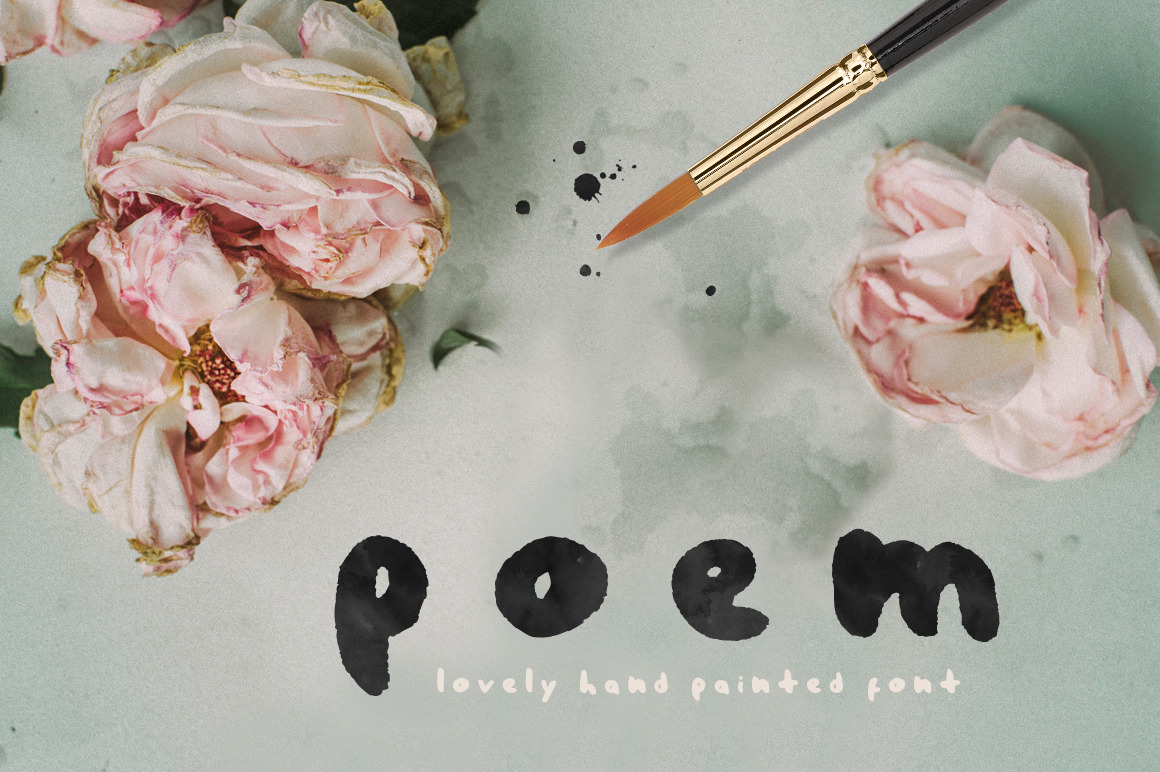
Poem Brush Font
Poem Brush Font is one of my best creations and one of my favorites! It's just soooo... romantic! Carefully hand painted with all my love. And it looks perfect with watercolors, like if it was freshly painted! With the purchase of this font you will receive a bonus of 5 real vintage papers totally free! :)